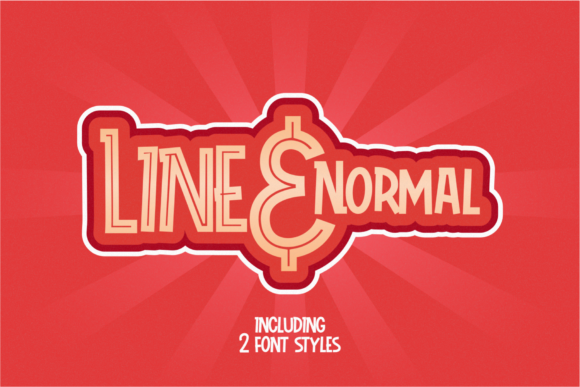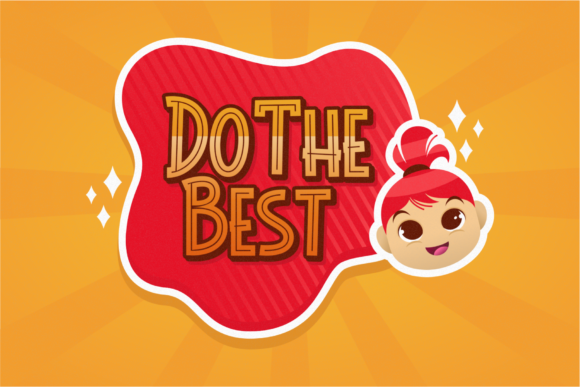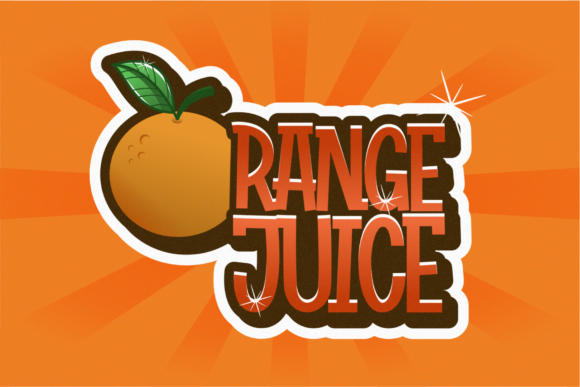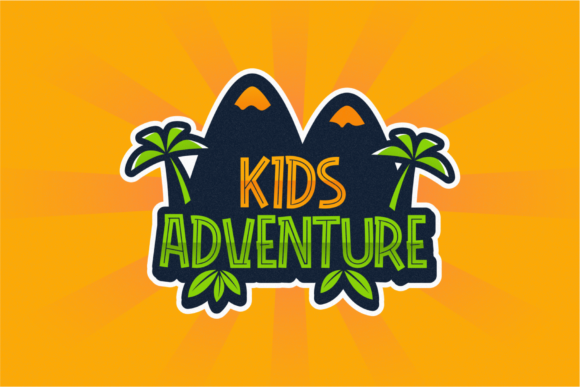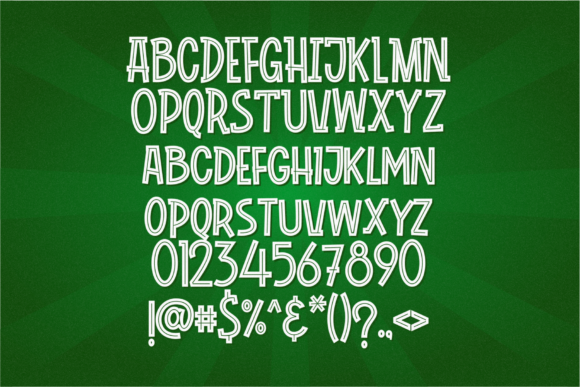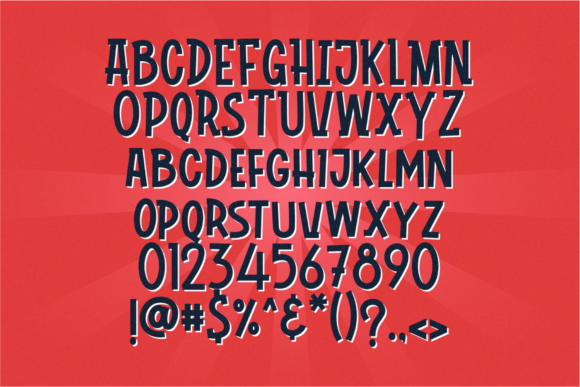
Introduction to Roadkey Font Font
Fonts play a crucial role in design, and the Roadkey Font font is a typeface that brings both character and versatility to any project. Whether you’re working on a branding project, a website, or a print design, the Roadkey Font font offers a unique style that can elevate your work.
Roadkey is a fun and cute display font with a gorgeous feel.
Fall in love with its playful and dynamic style It comes in two unique styles, Roadkey and Roadkey Line.
The Roadkey Font font is more than just a typeface – it’s a design tool that helps you communicate your message with style and clarity. Its unique character set and versatile design make it suitable for a wide range of applications, from elegant invitations to bold headlines.
With its carefully crafted letterforms and balanced proportions, the Roadkey Font font ensures readability and visual appeal across all mediums.
The Roadkey Font font stands out with its unique design, exceptional readability, and versatility across various design applications.